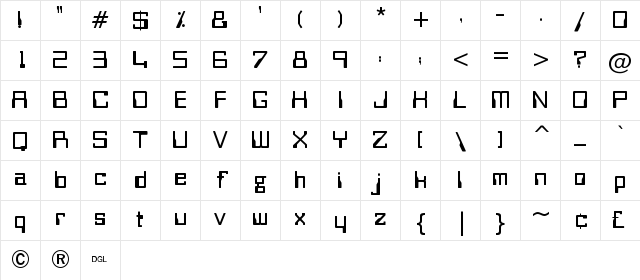
Bitwise Regular
Foundry: Digital Graphic Labs
Designer: Digital Graphic Labs
Design Context for Bitwise
Bitwise is a composed and adaptable typeface that performs quietly and consistently across a wide range of design contexts.
Pro Tip: Use Bitwise in both headline and body roles to test its range before committing to a single application.